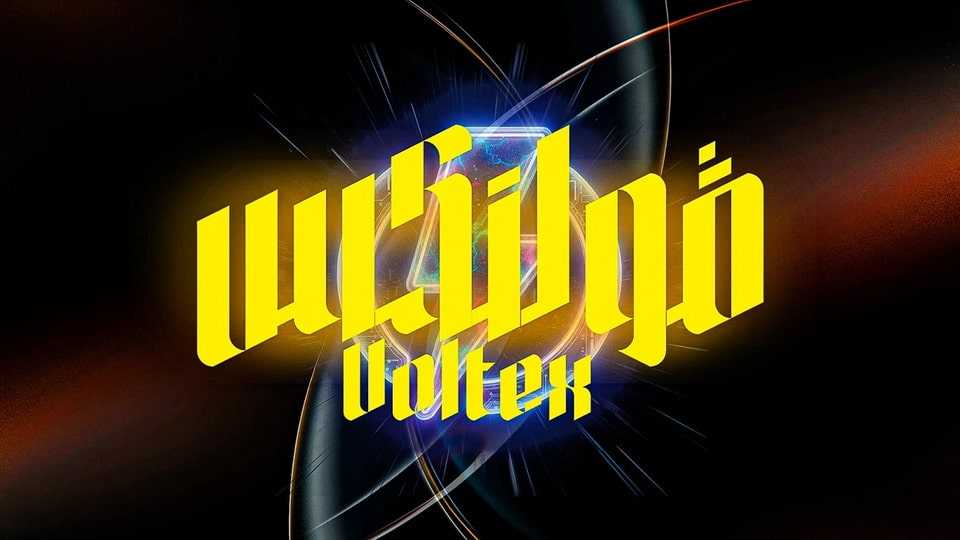
Download Voltex font, a bold experimental display typeface that fuses Arabic and Latin calligraphic influences into a single electrifying form.
Designer: MT TYPE FOUNDRY